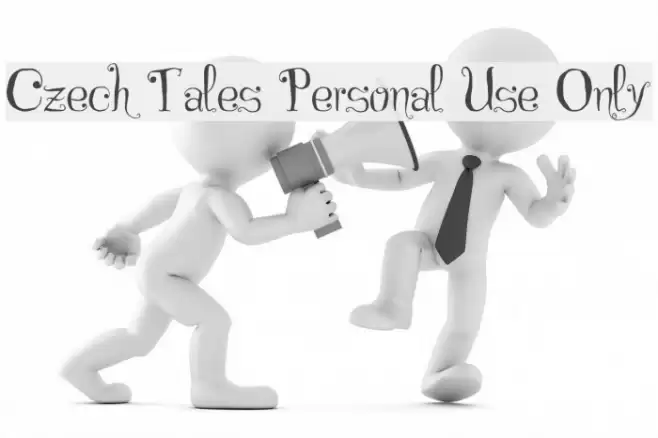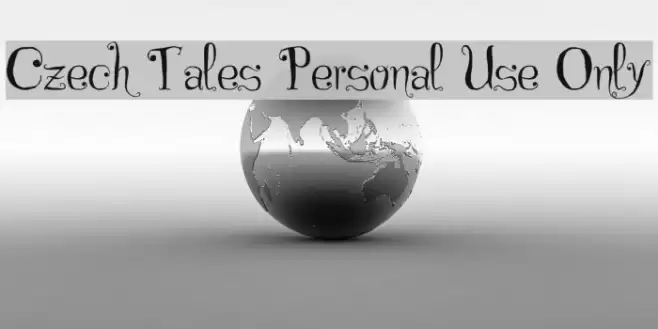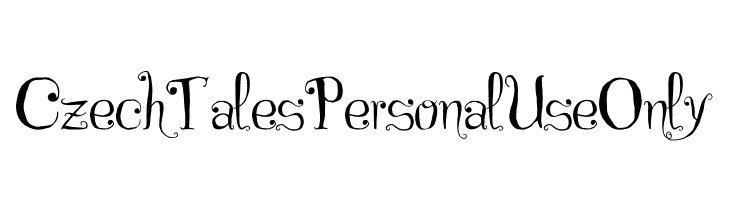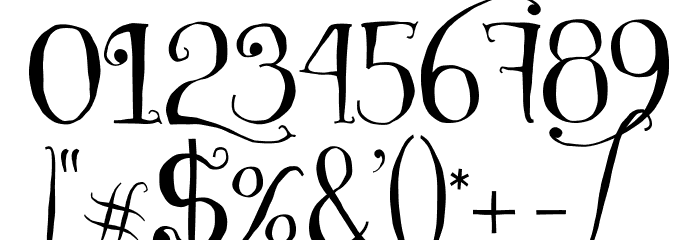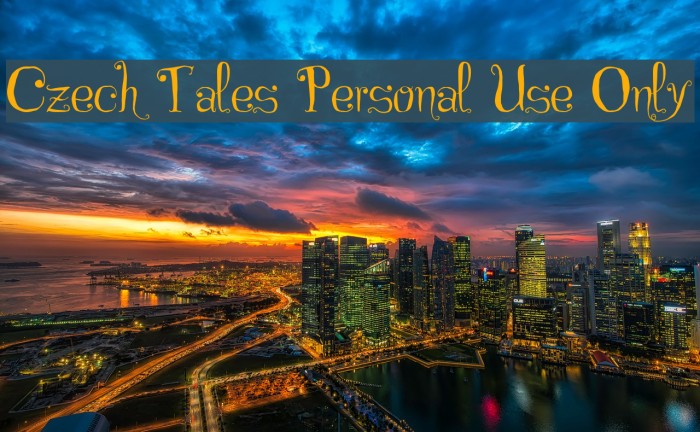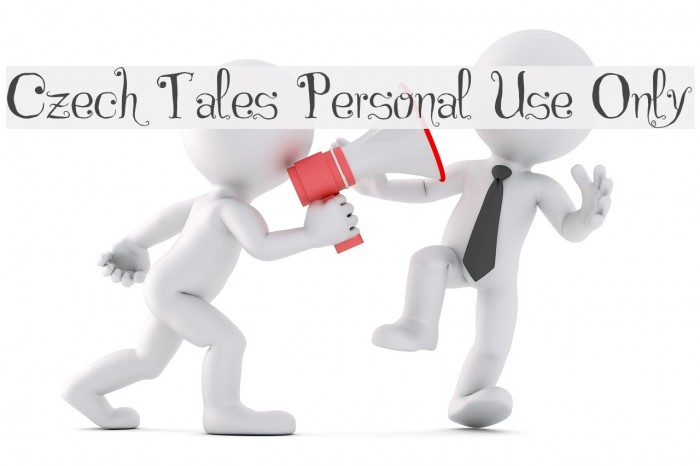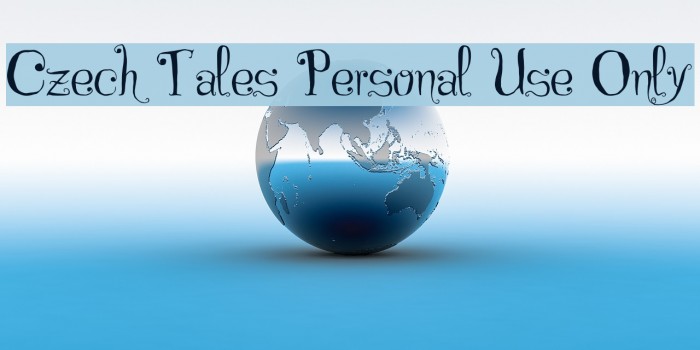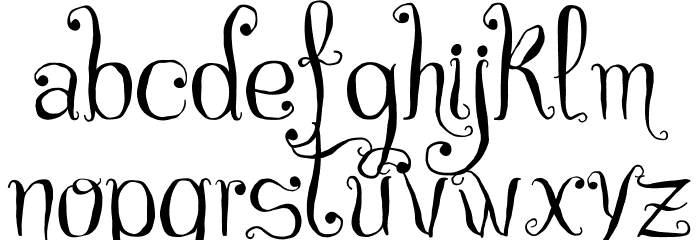
Czech Tales Personal Use Only Font
Czech Tales Personal Use Only Description
This font features a whimsical and decorative style with a playful and artistic flair. The characters are adorned with elegant swirls and curls, giving it a unique and enchanting appearance. The uppercase letters are bold and prominent, while the lowercase letters maintain a consistent style with intricate details. The numerals are equally stylized, adding to the overall charm. Special characters are creatively designed, enhancing the font's decorative nature. This font is perfect for projects that require a touch of fantasy and creativity.
A whimsical and decorative font with elegant swirls and curls from Uncategorized fonts.
- Proposed Projects: Ideal for fairy tale book covers, fantasy-themed invitations, artistic posters, and creative branding.
- Use Case: Headlines, Logos, Artistic projects